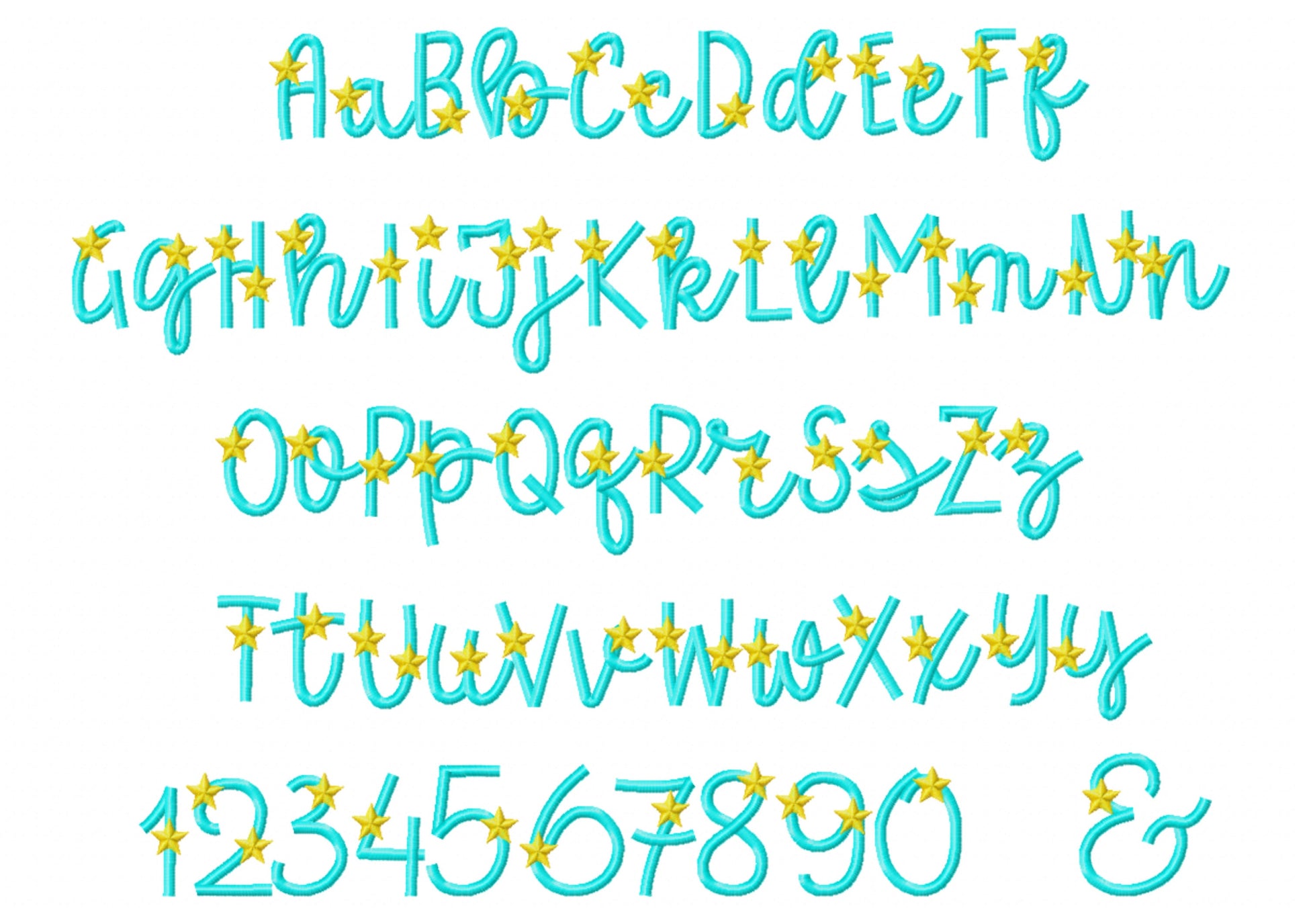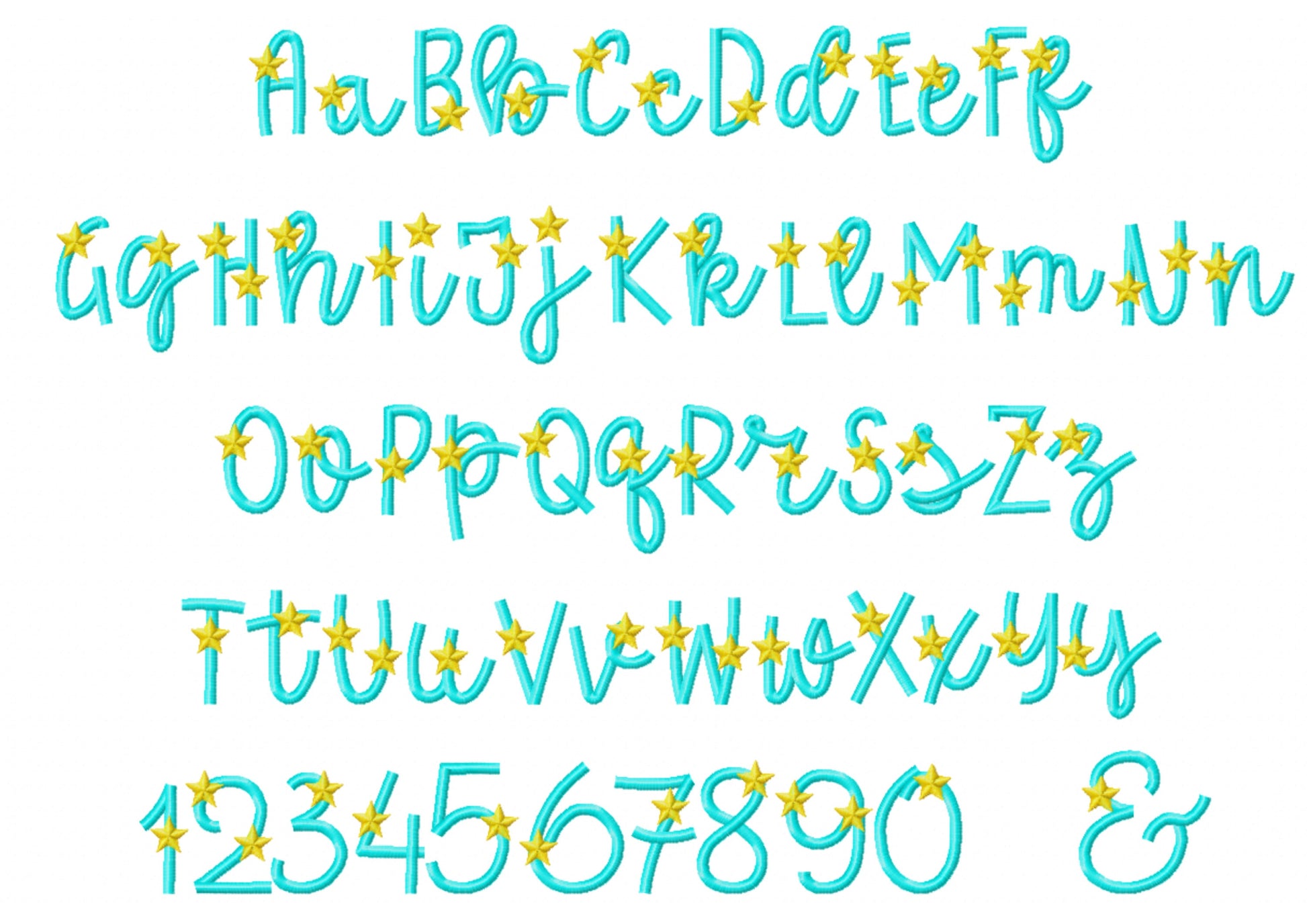
Or click to open the linkA thin satin line script with little stars, in mini sizes. Sweet for kids' names, Fourth of July shirts, bibs and gifts.
Uppercase and lowercase letters, numbers 0 to 9 and an ampersand. Six sizes: 1, 1.2, 1.5, 2, 2.2 and 2.7 inches.